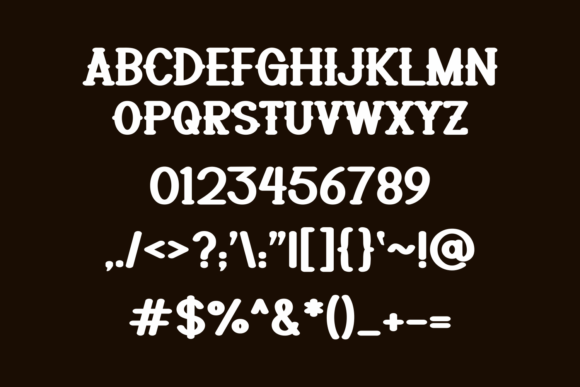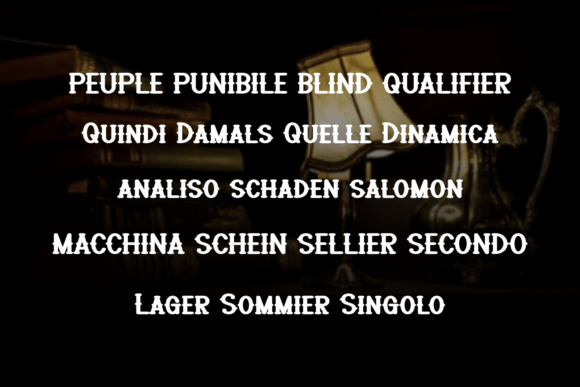
Introduction to Nahure Font
You know that moment when you’re working on a creative project and everything just clicks? The colors, the typography, the overall vibe – it all comes together in a way that makes you feel like a genius. That’s what happens when you add the right design elements to your project, and one of the most powerful tools in your arsenal is the Nahure Font.
As a designer, you’re always on the lookout for high-quality resources that can elevate your work and help you stand out from the crowd. The Nahure Font is a fun and bold display font that’s perfect for adding a touch of whimsy and personality to your designs. With its transparent background and versatile style, it’s a valuable addition to any design resource.
Key Features of Nahure Font
- High-quality design resource for creative projects, ideal for graphic designers, artists, and illustrators.
- Unique, hand-drawn style with a transparent background, allowing for seamless integration into any design.
- Includes multiple font weights and styles, providing versatility for various design applications.
- Designed to be a versatile design resource, suitable for a wide range of creative projects, from branding to editorial design.
Honest Review: Nahure Font
As a designer, I’m always on the lookout for high-quality design resources to elevate my creative projects. Recently, I had the chance to try out the Nahure Font, and I’m excited to share my honest review with you.
What works well: ✨ The Nahure Font is incredibly versatile and comes with a range of styles that can be used for both display and body text. The font is also available for free download, making it a great resource for designers on a budget. I particularly love the transparent background option, which makes it easy to use the font on top of any image or design element.
Some limitations: ⚠️ The Nahure Font may not be suitable for all types of projects, as it’s more geared towards creative and artistic designs. Additionally, the font’s bold weight may be too overpowering for some designs, so be sure to use it sparingly.
Overall impression: I’m really impressed with the Nahure Font and would definitely recommend it to designers working on creative projects. Its high quality and versatility make it a valuable addition to any design library.
- Perfect for creative and artistic designs
- May not be suitable for all types of projects
Tips for Getting the Most Out of Nahure Font
Use Nahure Font with a transparent background to create a modern and clean design. Experiment with different font sizes and styles to add visual interest to your project. You can also pair Nahure Font with other design resources, such as graphics and images, to create a unique and creative project.